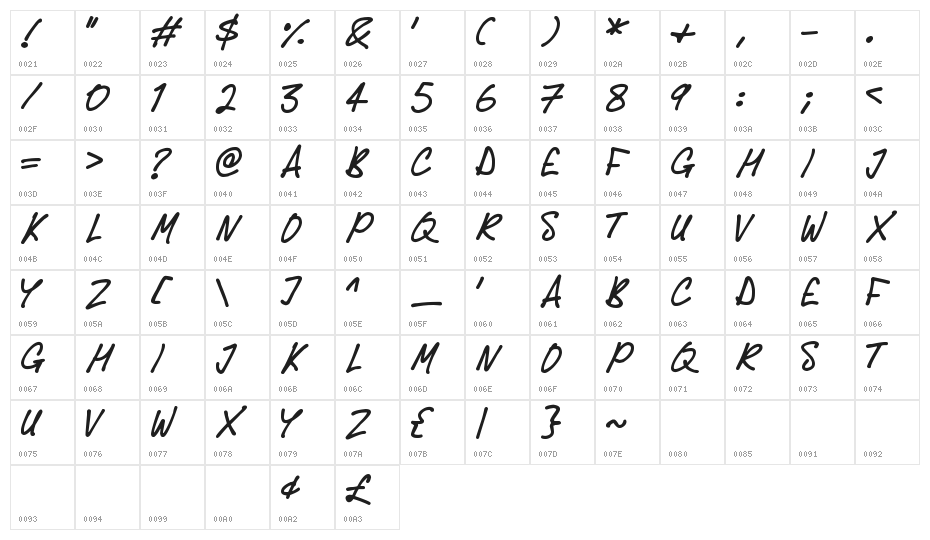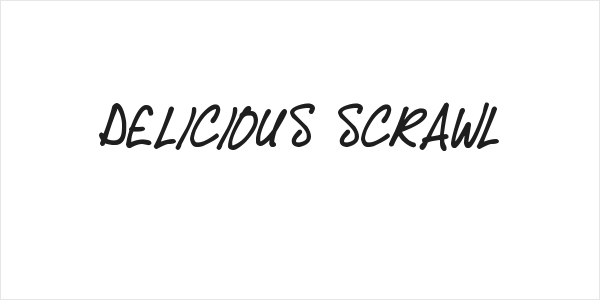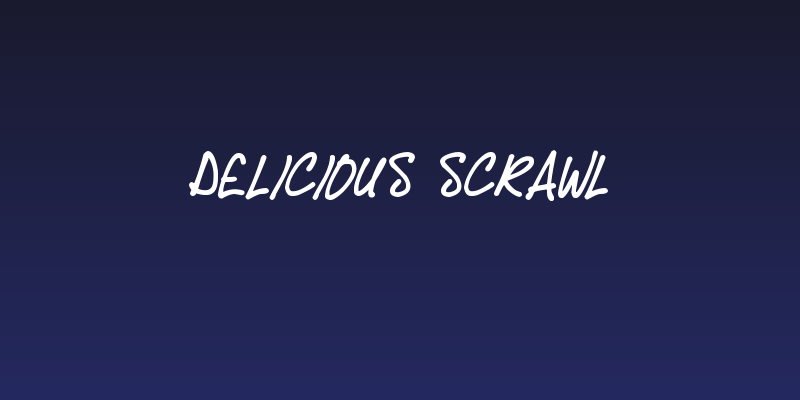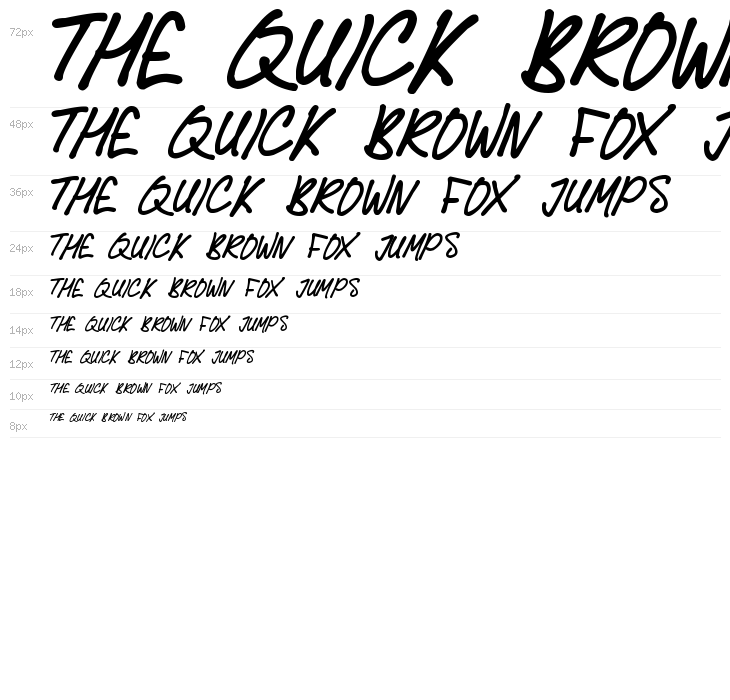
Delicious Scrawl Font
Delicious Scrawl Description
This font exudes a playful and energetic vibe, characterized by its bold, handwritten style. The letters are slightly slanted, giving it a dynamic and informal appearance. Each character is crafted with a consistent stroke width, contributing to its cohesive look. The uppercase and lowercase letters maintain a uniform height, enhancing readability while retaining a casual flair. The numbers and special characters are designed with the same lively spirit, making them stand out in any context. This font is perfect for projects that require a touch of personality and creativity.
| Overall Style | Playful |
| Use Case | Headlines, Logos, Creative projects |
| Proposed Projects | Ideal for greeting cards, playful branding, children's books, and creative posters. |